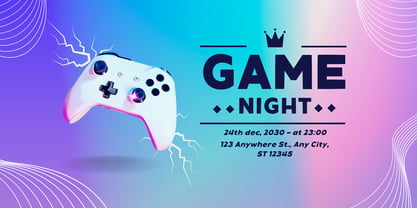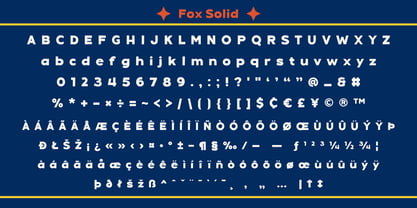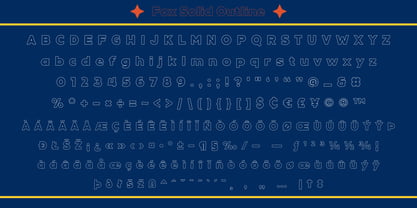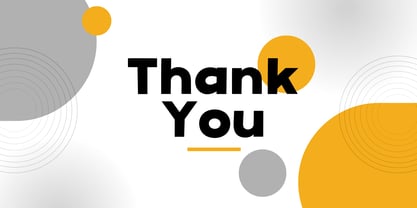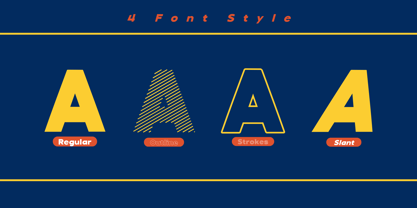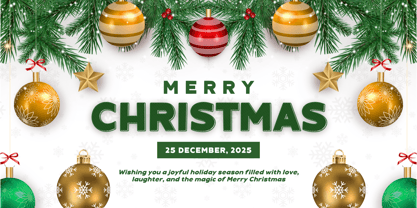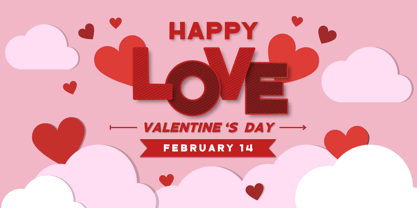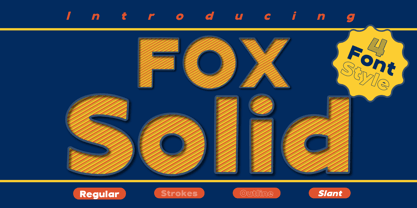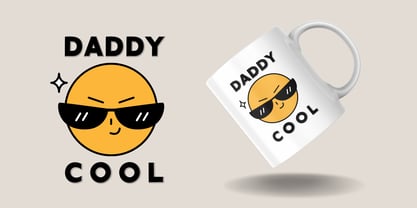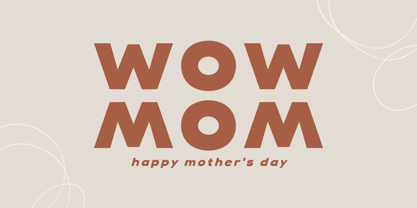
Fox Solid
by Fox7
The Fox Solid Font Family was designed by Rattana Rattanawan and published by Fox7. Fox Solid contains 4 styles and family package options. More about this family
Fox Solid Font is a bold and cool stylish typeface designed to add impact to your designs. It comes in four unique styles:
🔹 RegularA clean and solid version, perfect for headlines and branding.
🔹 StrokesA sleek outlined style with a modern touch.
🔹 OutlineA creative striped design that adds texture and depth.
🔹 SlantA dynamic italicized version for a more energetic feel.
With its eye-catching and versatile design, Fox Solid is ideal for posters, logos, and any project that needs a strong and modern typeface.